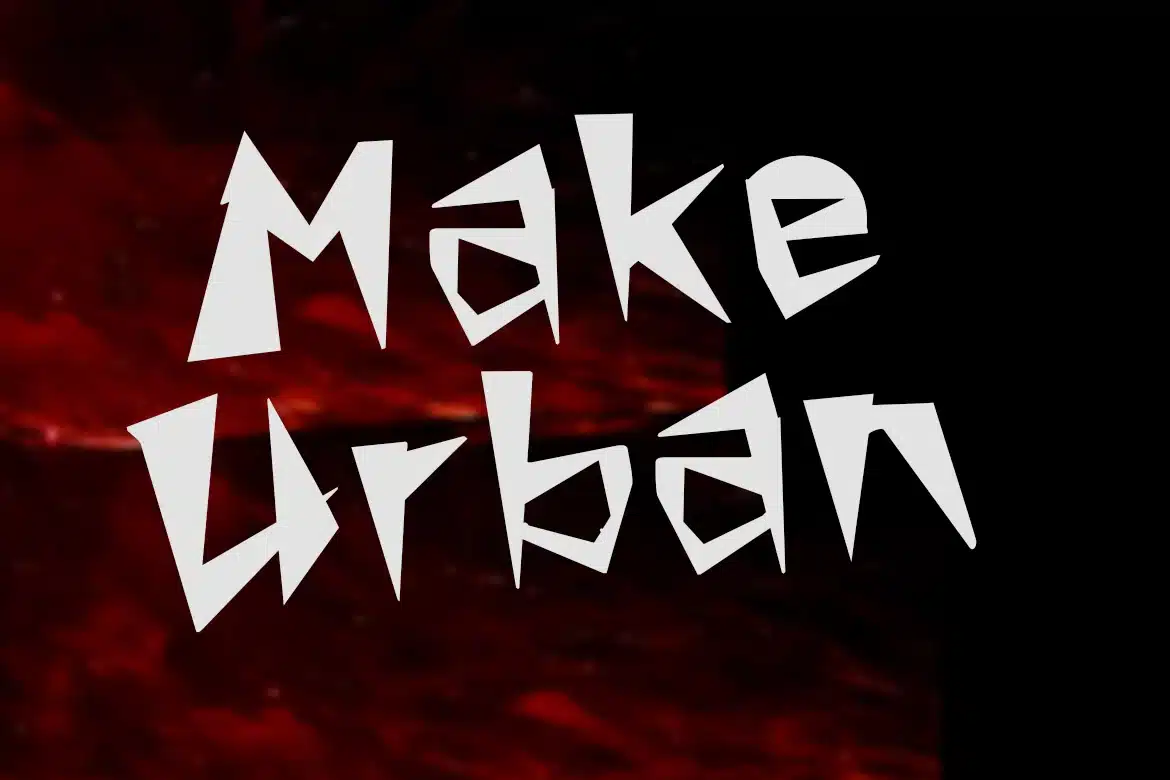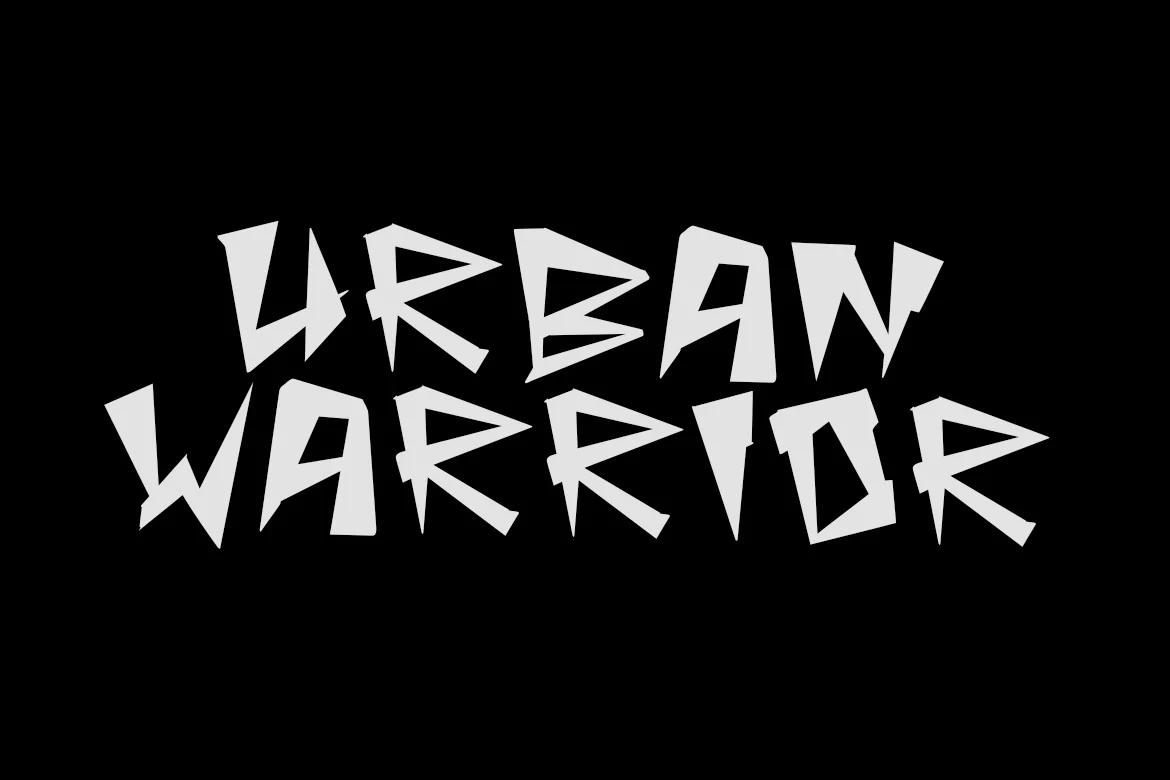
Bajex – Typeface Font
The Bajex font is a bold, aggressive display typeface characterized by its sharp, jagged edges and irregular geometric letterforms. Each character exhibits a high-contrast, heavy weight with pointed terminals that evoke a sense of raw energy and punk-inspired aesthetics. The 'B' features sharp, triangular cutouts, while the 'x' is rendered as a large, striking cross-like symbol. Its unconventional structure and distorted silhouettes make it ideal for high-impact visual communication, such as music album covers, alternative branding, and experimental poster designs where a gritty, rebellious tone is desired.